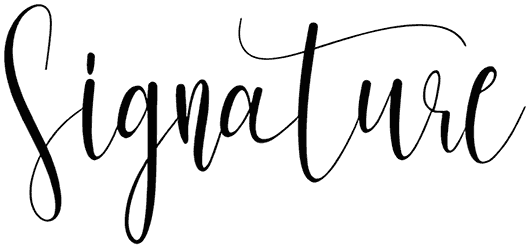
Signature Font
Today, we are here to represent our new calligraphy font, Signature. It brings a luxurious and elegant impression that will be appreciated by everyone. This signature font includes uppercase, lowercase, numerals, and punctuation, but doesn’t have good readability. It can be a great option for magazine covers, feminine branding, advertising purposes, wedding invitations, and other special events.